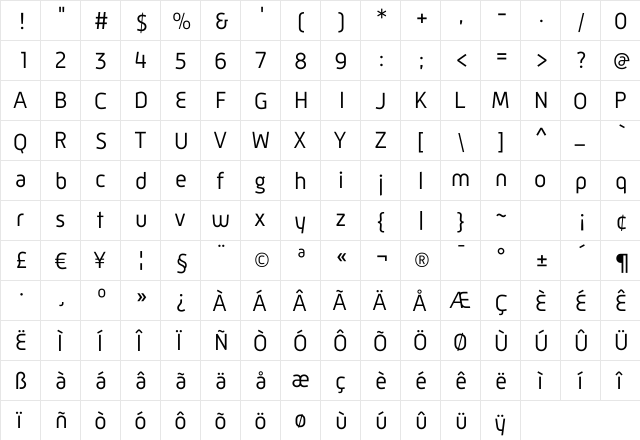
Mic 32Regular Regular
Design Context for Mic 32Regular Typeface
Mic 32Regular takes a measured approach to typography — its balanced proportions and neutral character make it a reliable workhorse for both digital and print work.